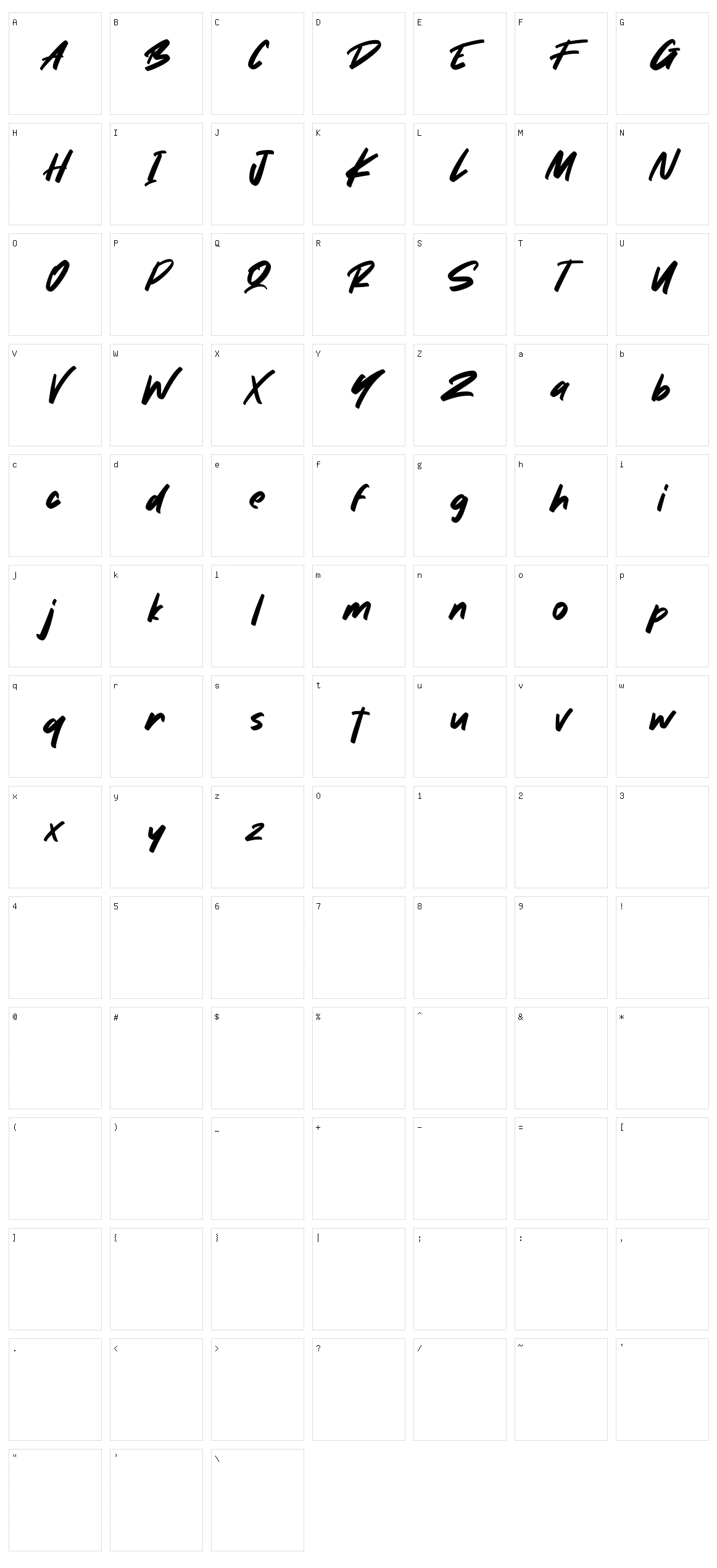
The free font Filling Station is carefully designed by Vunira Design, showcasing a thoughtful balance of creativity and usability and falls under the Script font style. When you download the ZIP file, it contains only 29.37 KB of font files, making it lightweight and quick to download. Please review the license details below to understand permitted usage and distribution rights. If license information is not available, we recommend using this font for personal projects only or contacting the author directly for commercial usage permissions.